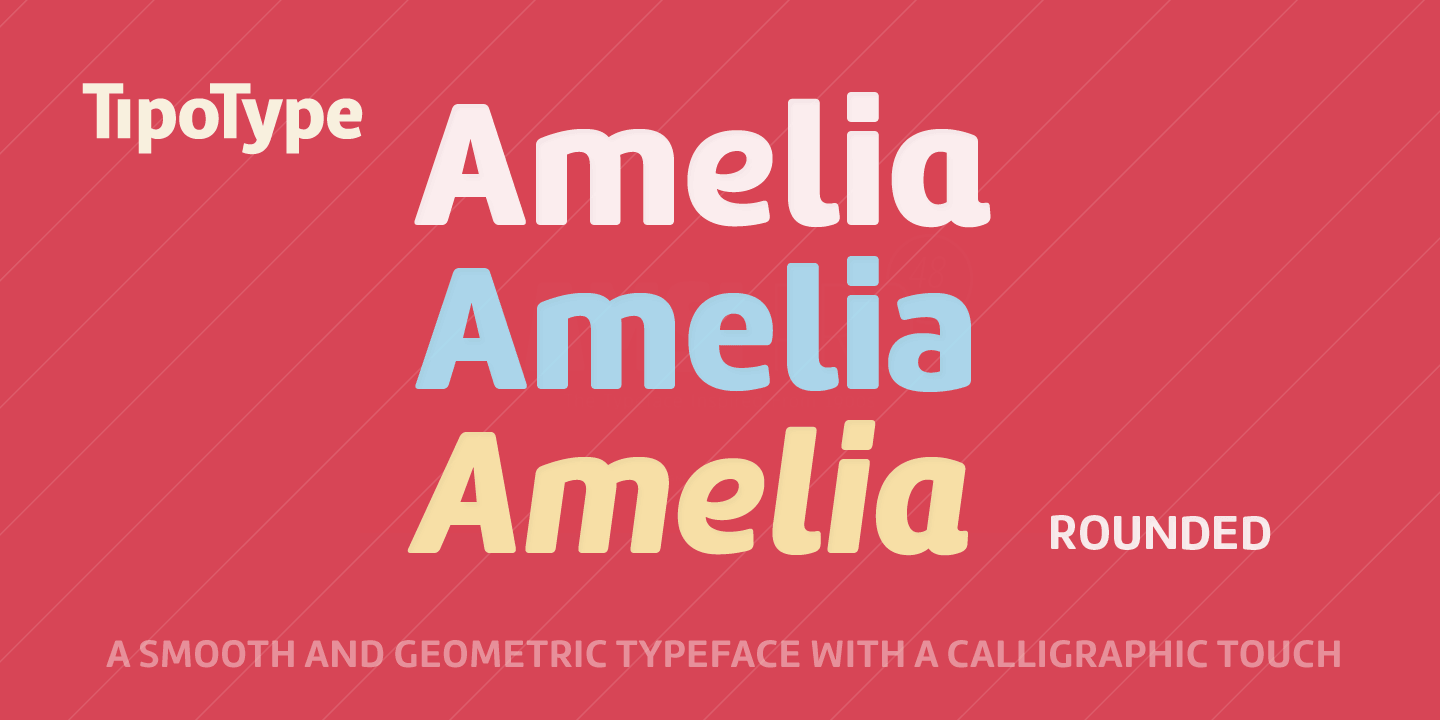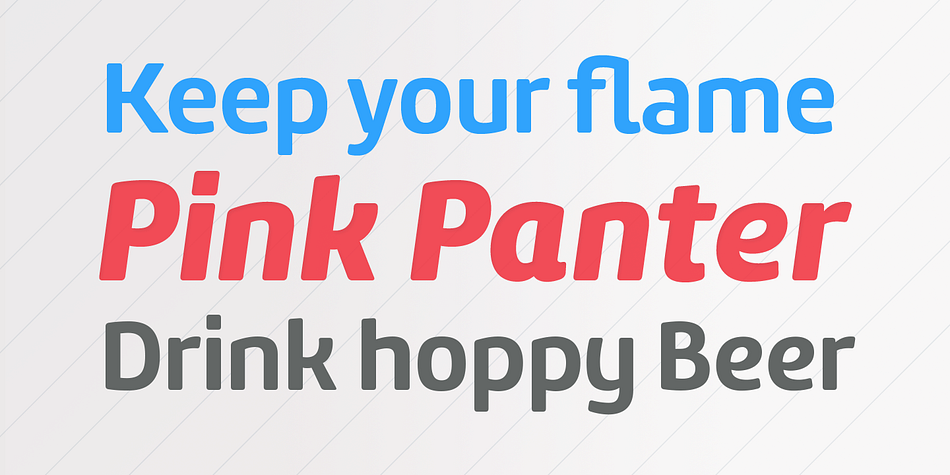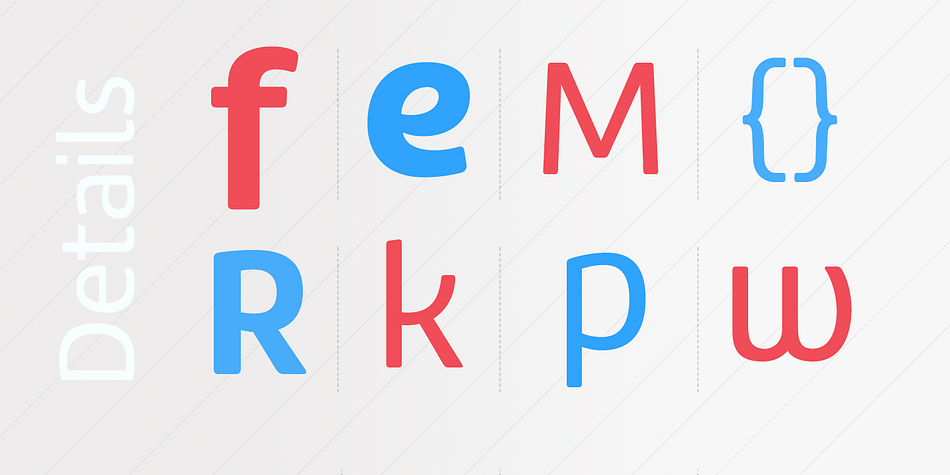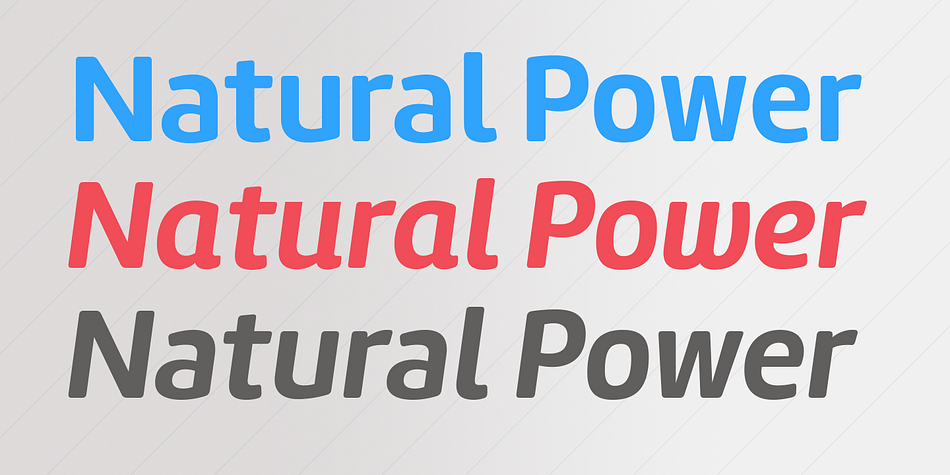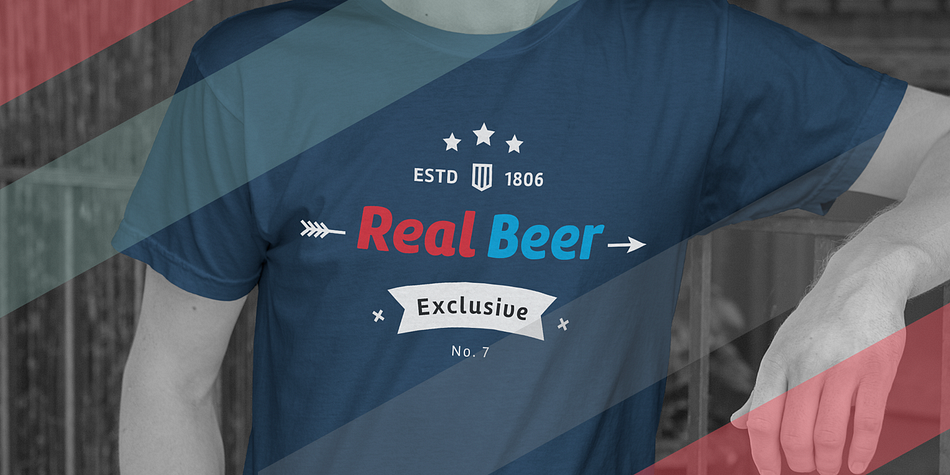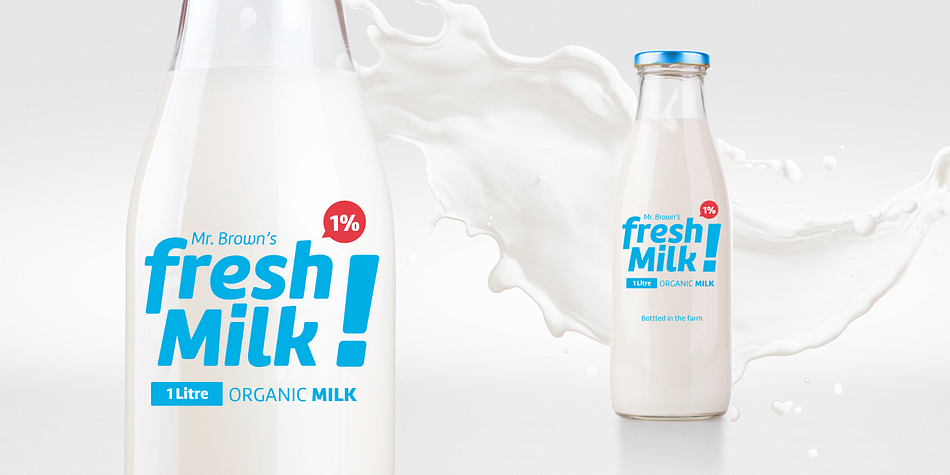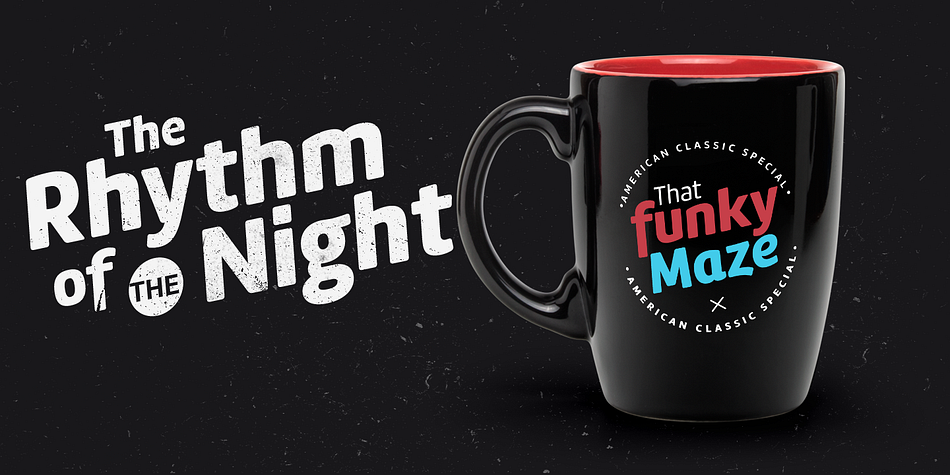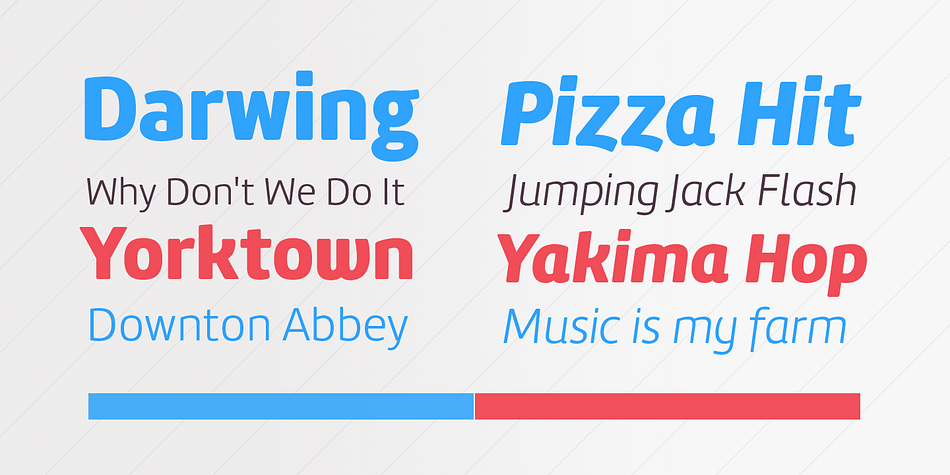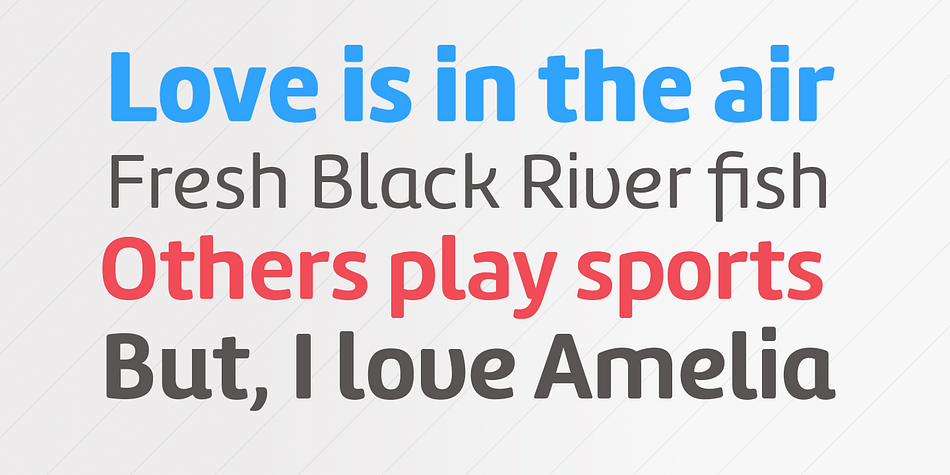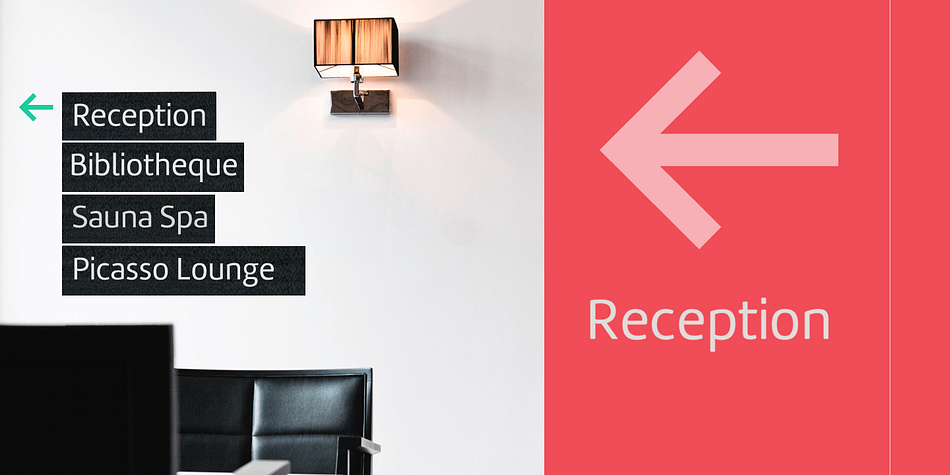
Designed by Martin Sommaruga, Amelia Rounded is a sans serif font family. This typeface has sixteen styles and was published by TipoType.
Amelia Rounded is a geometric sans that keeps the softness of humanistic strokes.
The combination of contrasting styles makes Amelia Rounded an ideal choice for both body and display text.
The different styles included in the Amelia Rounded family offer flexibility and variation for your projects, either for a formal or a relaxed look, thanks to the Up version.